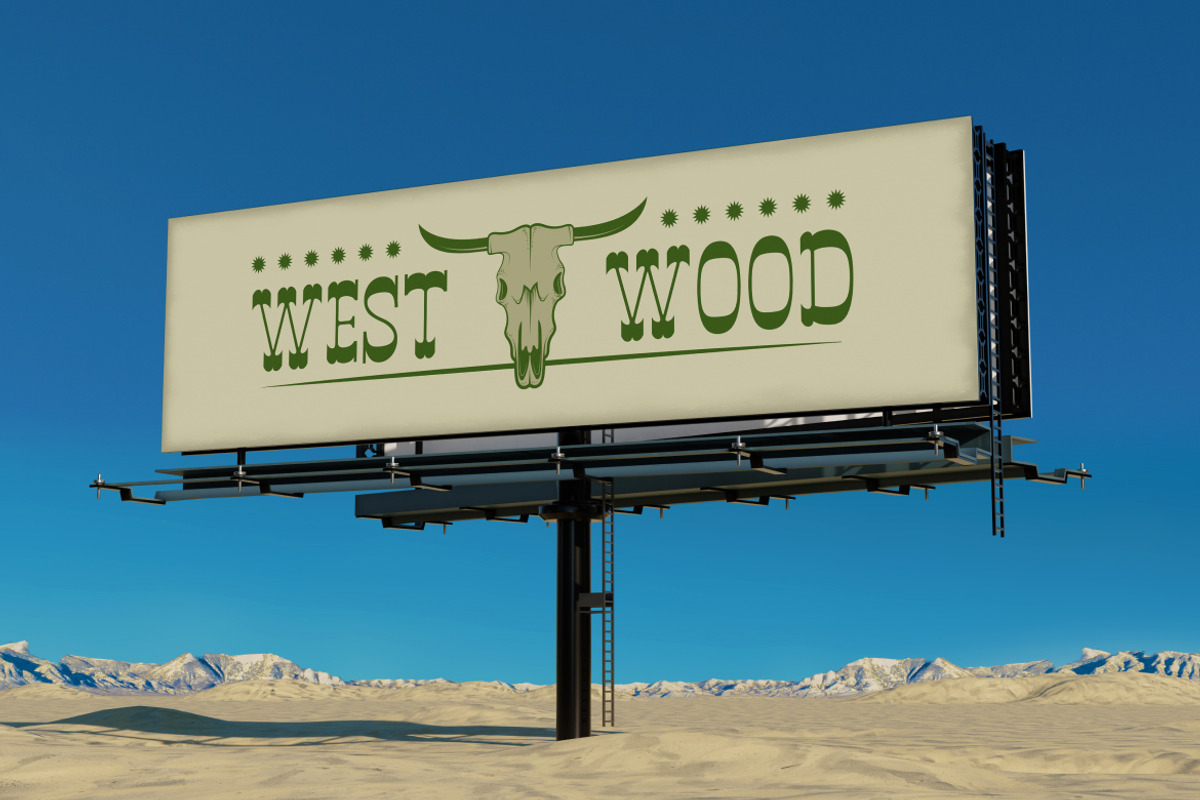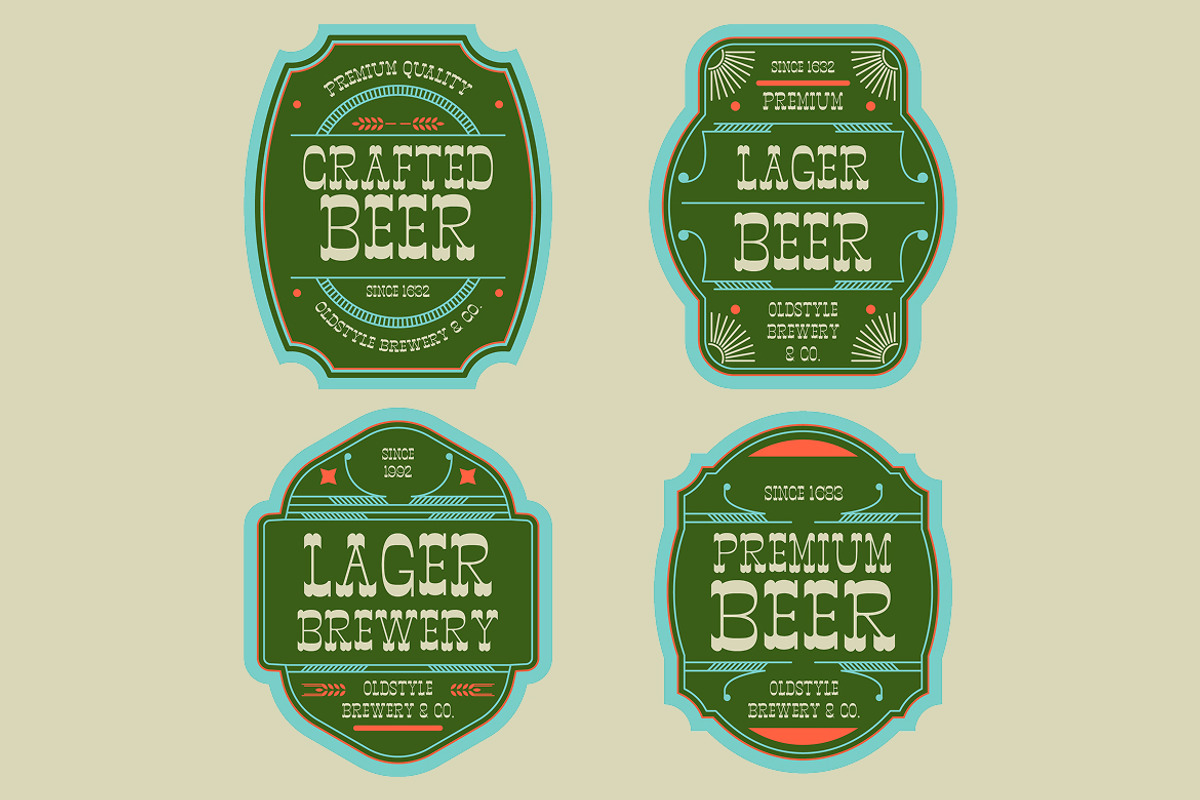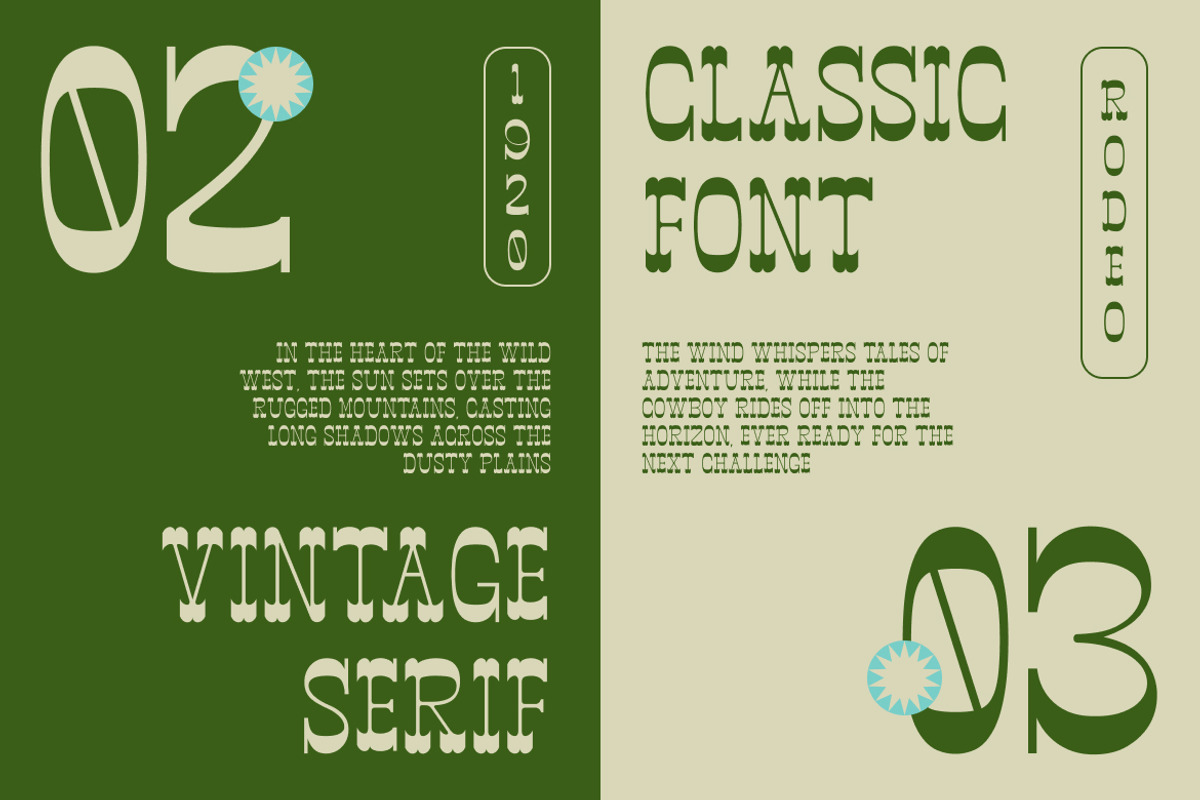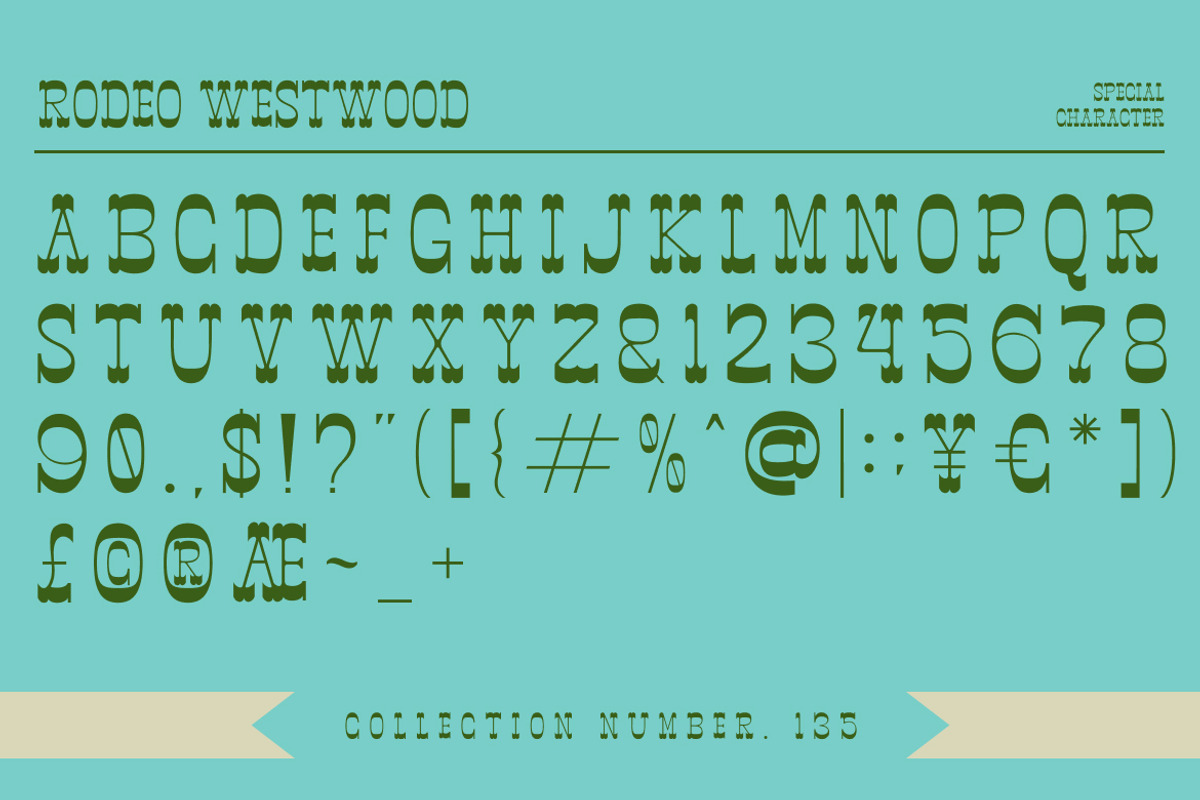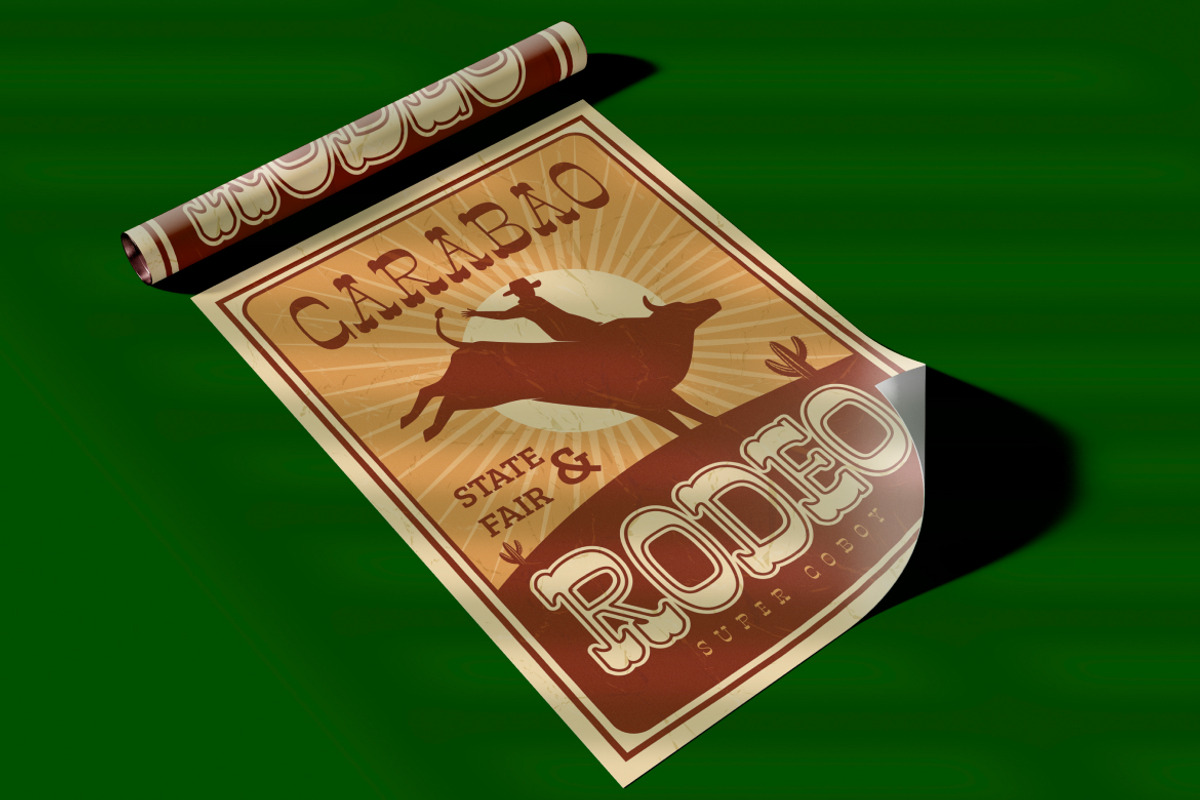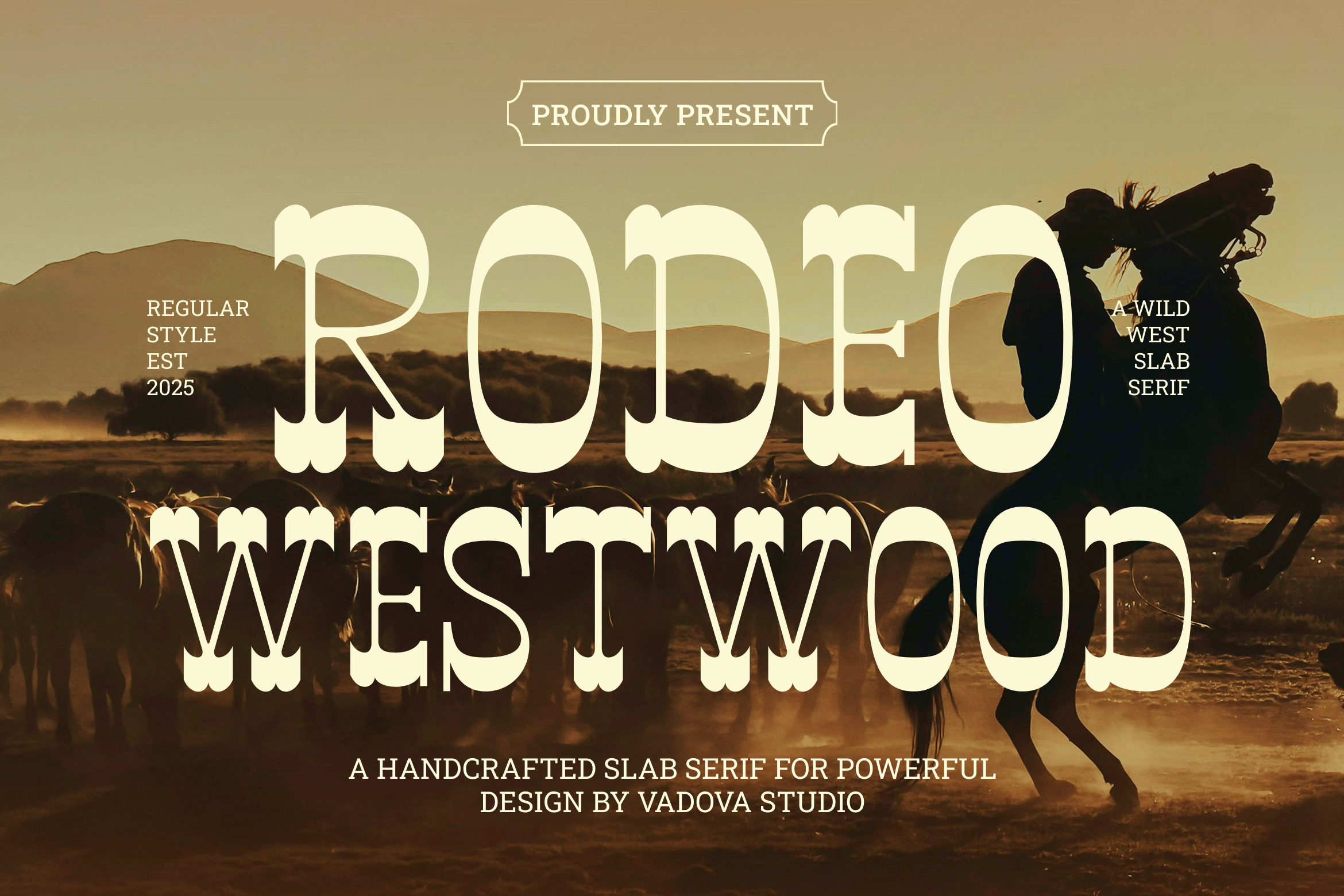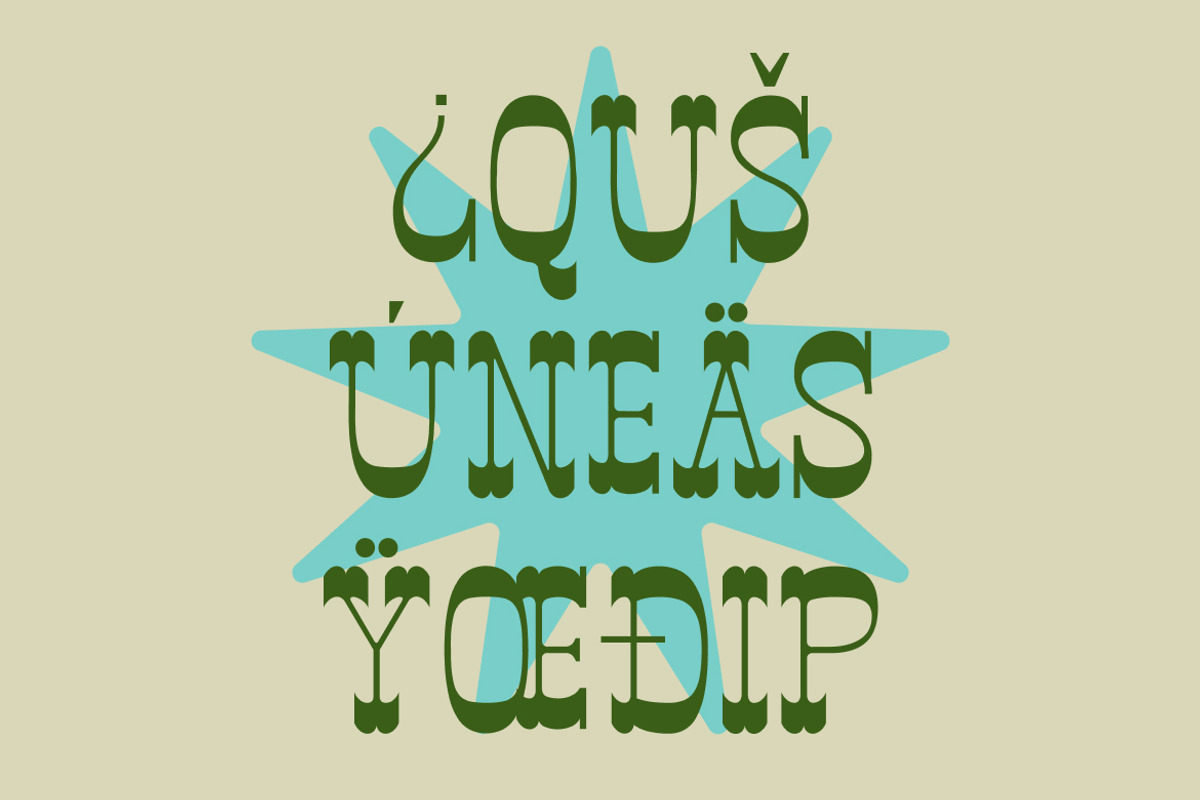
Rodeo Westwood Slab Serif Font
Rodeo Westwood is a handcrafted wild west slab serif font inspired by classic western typography and vintage rodeo signage. Designed with distinctive slab serifs and decorative character details, this typeface captures the rugged spirit of the American frontier while maintaining strong readability for modern design projects. The font features bold letterforms with unique western-style terminals that give each character a strong personality.
Rodeo Westwood is designed for projects that embrace western heritage and vintage aesthetics. It works perfectly for rodeo event posters, western-themed branding, rustic packaging, vintage signage, country music posters, cowboy merchandise, adventure branding, and retro-inspired design projects that require an authentic Wild West typographic style.
- Classic western slab serif structure inspired by vintage rodeo signage
- Decorative spur-like terminals that evoke authentic cowboy typography
- Bold slab serifs with rugged character shapes for strong visual impact
- Vintage ornamental details reflecting frontier and saloon aesthetics
- Balanced spacing that keeps the expressive display style clear and readable
- Western and vintage brand identities inspired by classic frontier aesthetics
- Rodeo posters, country music event graphics, and rustic festival promotions
- Retro signage, saloon branding, and cowboy-themed merchandise
- Product packaging for whiskey, BBQ, craft goods, or heritage brands
- Vintage-style social media graphics and bold display typography for posters